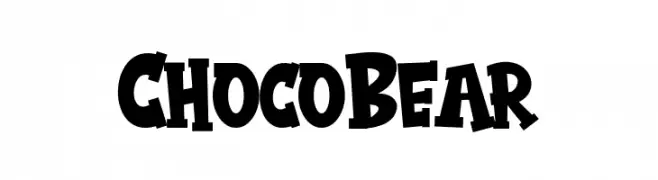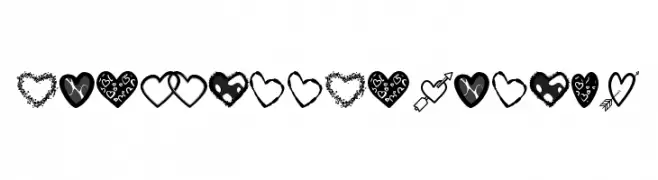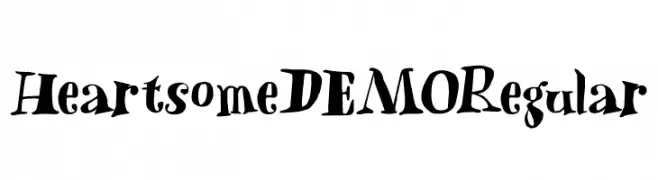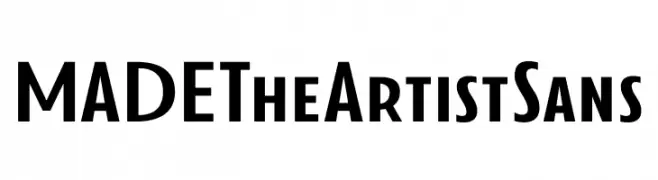
A playful, bold font with exaggerated curves and a whimsical design.
A playful, bold font with rounded, whimsical letterforms.
A bold, rounded, and playful font with a hand-drawn feel.
A playful and whimsical font with bold, hand-drawn strokes and decorative heart elements.
A bold, decorative font with intricate circular patterns creating a modern and striking appearance.
A bold, modern sans-serif font with clean lines and a structured appearance.
A decorative font with diverse heart shapes and playful designs.
A diverse set of heart shapes with unique patterns and designs.
A whimsical collection of heart and flower motifs for romantic designs.
A jagged, edgy font with sharp, thorn-like characters.